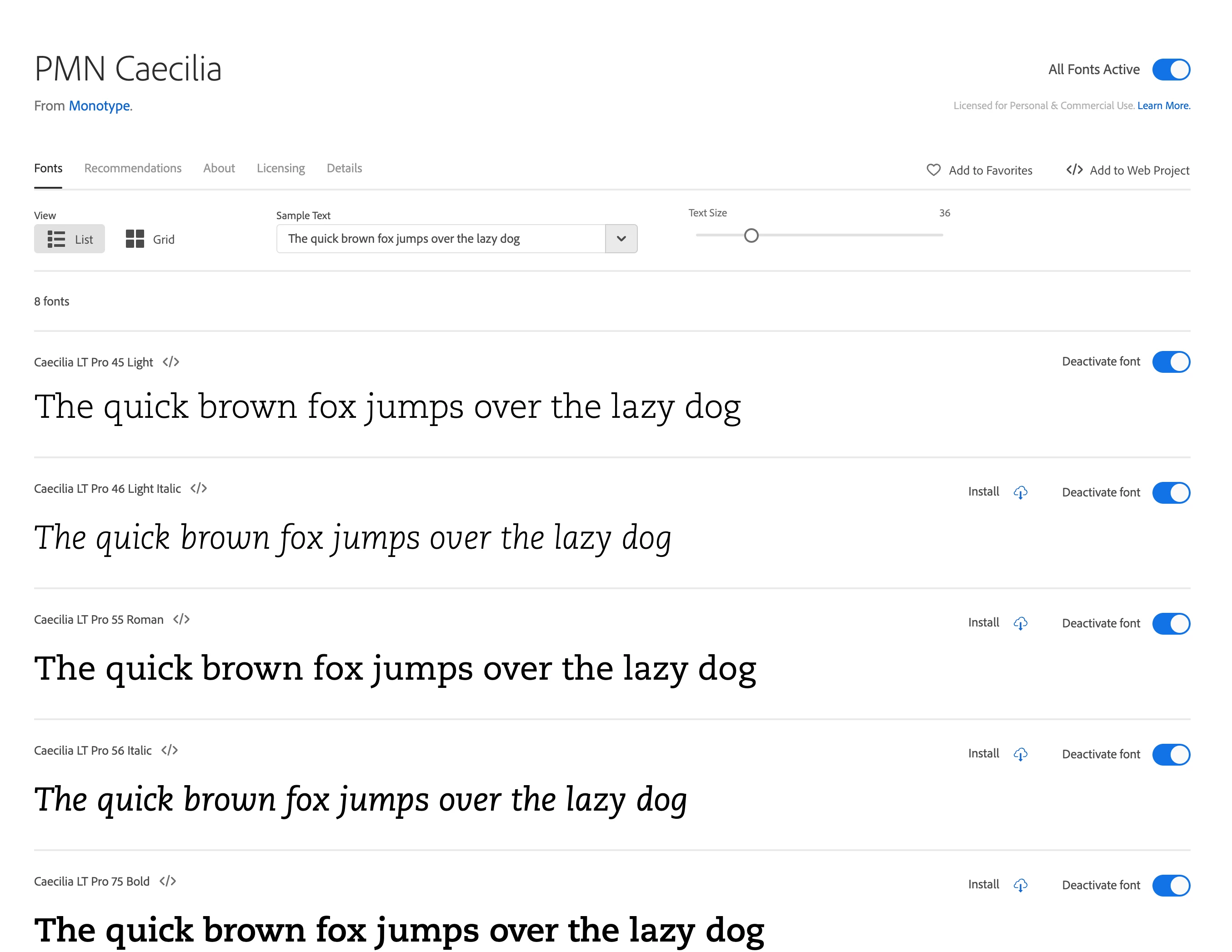
I use PMN Caecilia from the Adobe Fonts library as the body copy of a montly magazine I design.  Indesign is putting an exclamation point next to it.  Will it be updated in Adobe Fonts so we can continue to use it?
Simple Answer:
Any font that you activate that’s part of Adobe Fonts – and of your Creative Cloud subscription – is already in OpenType format. So there’s no need to worry about any compatibility problems going forward.
If you happen to have the original PostScript Type 1 fonts installed on your computer – and your InDesign document was originally built to use them – then InDesign will still assume that you want to use those Type 1 fonts over the OpenType versions that you may have activated in Adobe Fonts.
The easiest way to work out what font formats your document is currently using is to go to the ‘Type > Find/Replace Font’ dialogue box. There, you’ll find a complete listing of every font used, as well as icons next to each font indicating which format it is.
If a listed font has a small red ‘a’ icon next to it, that means your document still relies on a PostScript Type 1 version of PMN Caecilia. Lower down in the dialogue box will be some controls that will allow you to replace one font with another.
A handy checkbox to look out for: ‘Redefine Style When Changing All’. This will help you switch any Type 1 versions of Caecilia to their OpenType equivalents, and will also adjust any Paragraph and Character Styles too.
Detailed Answer:
If you had licensed PMN Caecilia from the Adobe Type Library before 2003, you most likely are using the PostScript Type 1 format of the typeface. Type 1 font files are specific to the operating system you use: the Macintosh Type 1 font files didn’t work on Windows, and vice versa. OpenType – the preferred format for most typefoundries from about 2000 onwards – doesn’t suffer from that problem.
As for whether PMN Caecilia will always be available as part of Adobe Fonts: that depends upon the relationship between Adobe and the issuing typefoundry Monotype. Monotype owns Linotype, who first licensed PMN Caecilia as part of Adobe’s original Type Library back in the 1990s (Font Packages Nº 216 & 235). The typeface was originally designed by Peter Matthias Noordzij, and first released by Linotype in 1991.
As long as the legal relationships between Noordzij, Linotype/Monotype, and Adobe hold, PMN Caecilia will continue to exist as part of the Adobe Fonts collection. But if things change, then you’ll need to license the fonts directly from Monotype. But the chances of this happening are quite small: PMN Caecilia is a popular typeface, and has been licensed through Adobe for the past three decades.
For your information, starting in January 2023, any PostScript Type 1 fonts will not appear in your font list. Any documents using PostScript Type 1 fonts will trigger a “missing font” error when opened best thing you can do is start now in making your font replacements, as many of us have been doing since this notification. We're consciously choosing alternate font types (TrueType or OpenType fonts) for new projects, and disabling Type 1 fonts from our systems as we find replacements. I'm sorry the news isn't any better than that. You can read Adobe's notice here about the decision. https://helpx.adobe.com/fonts/kb/postscript-type-1-fonts-end-of-support.html.